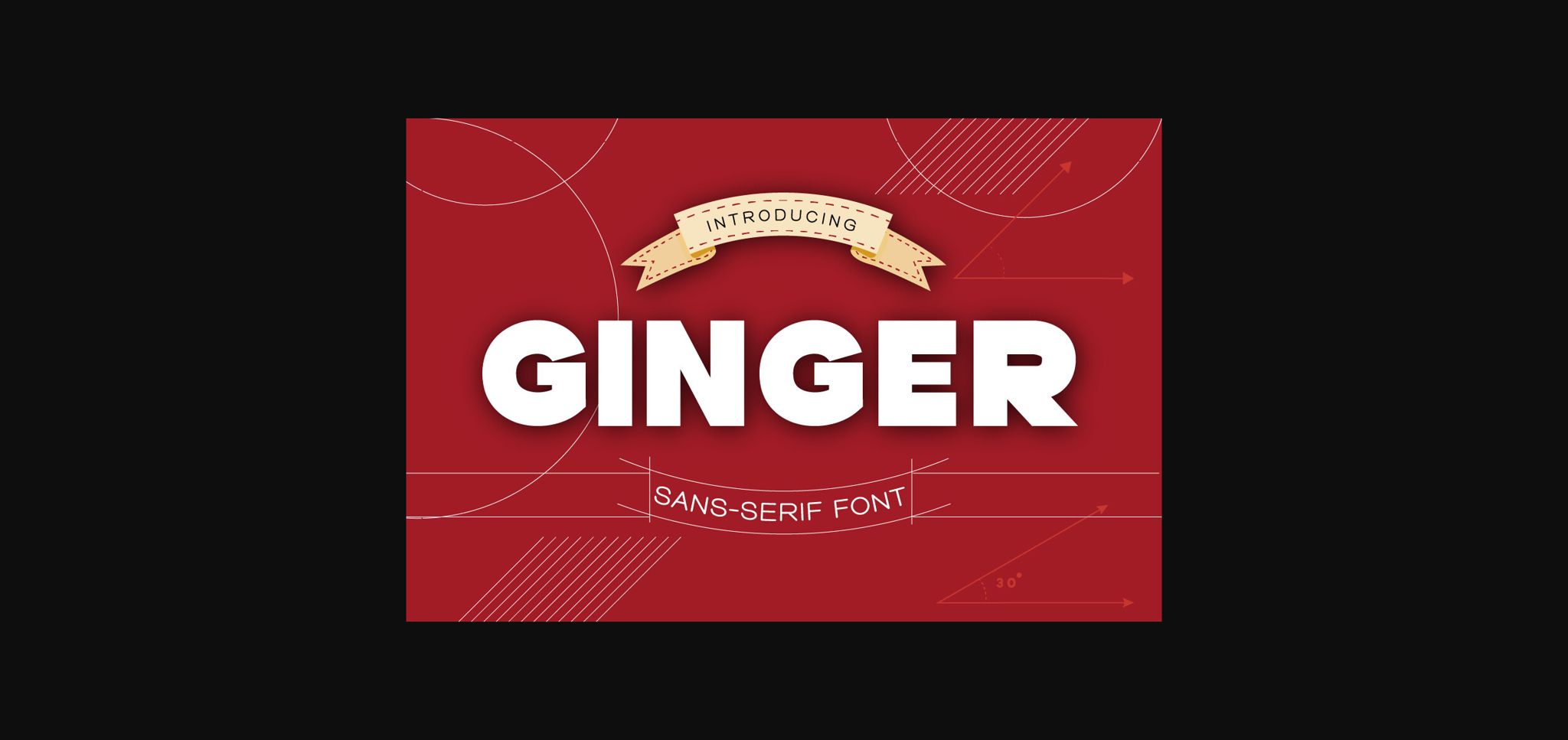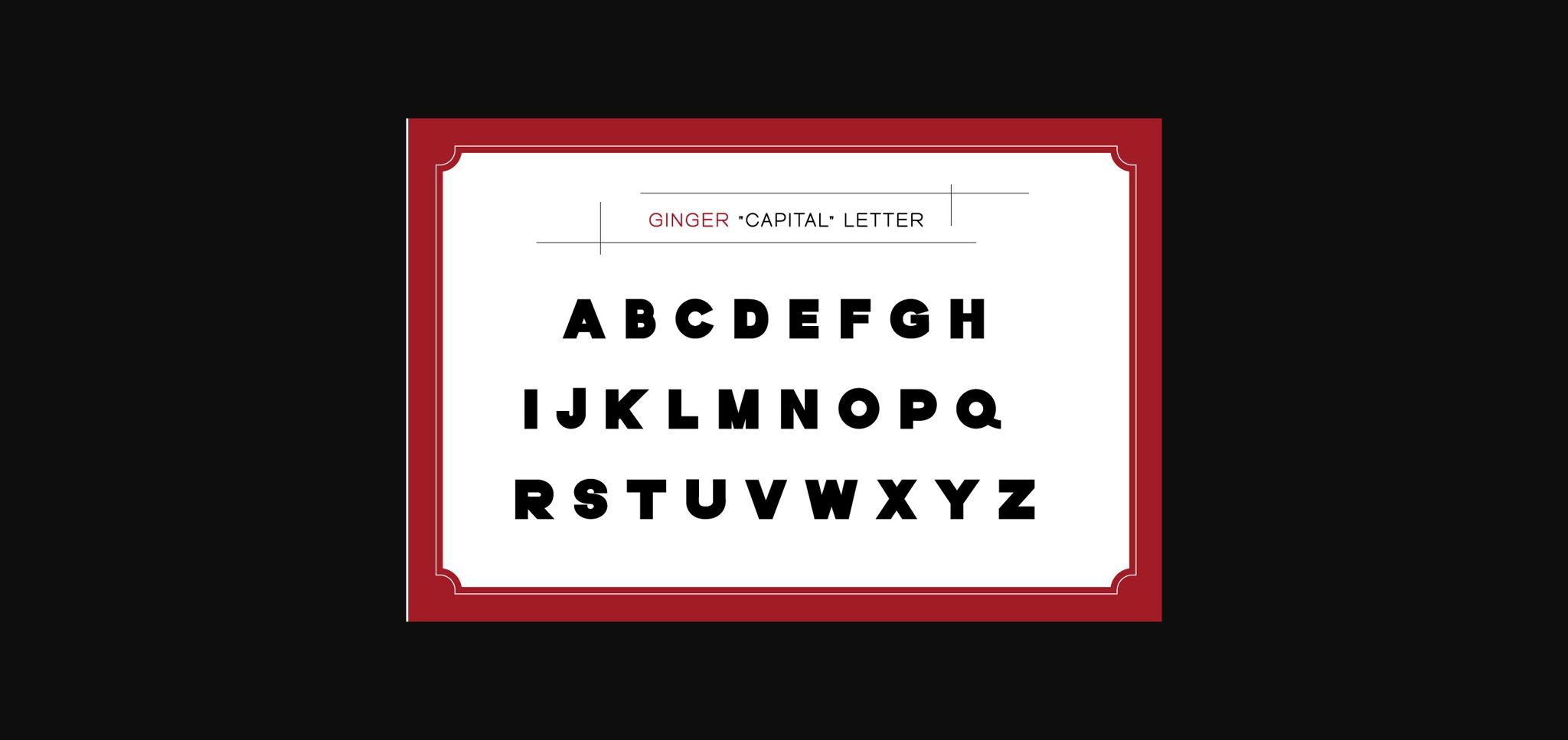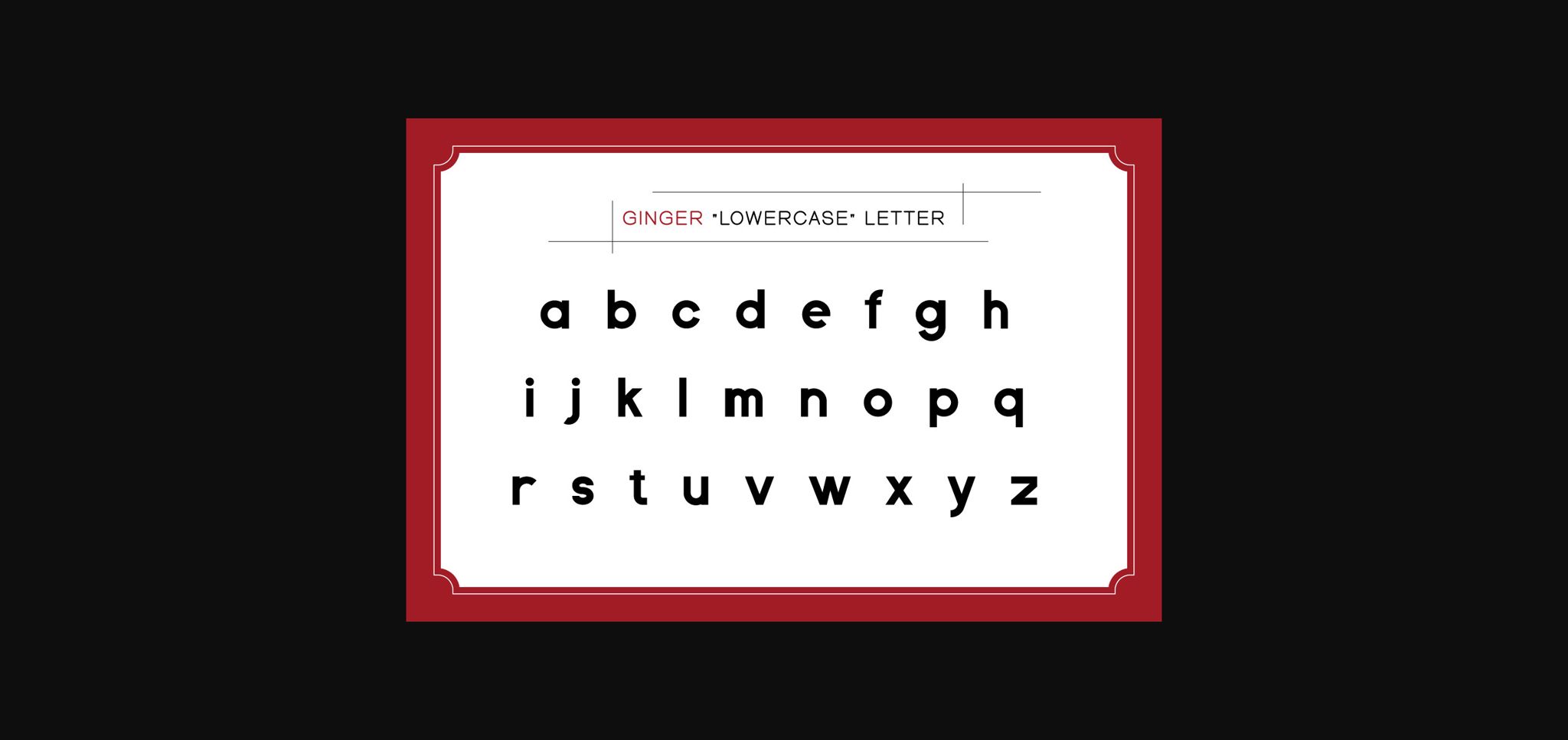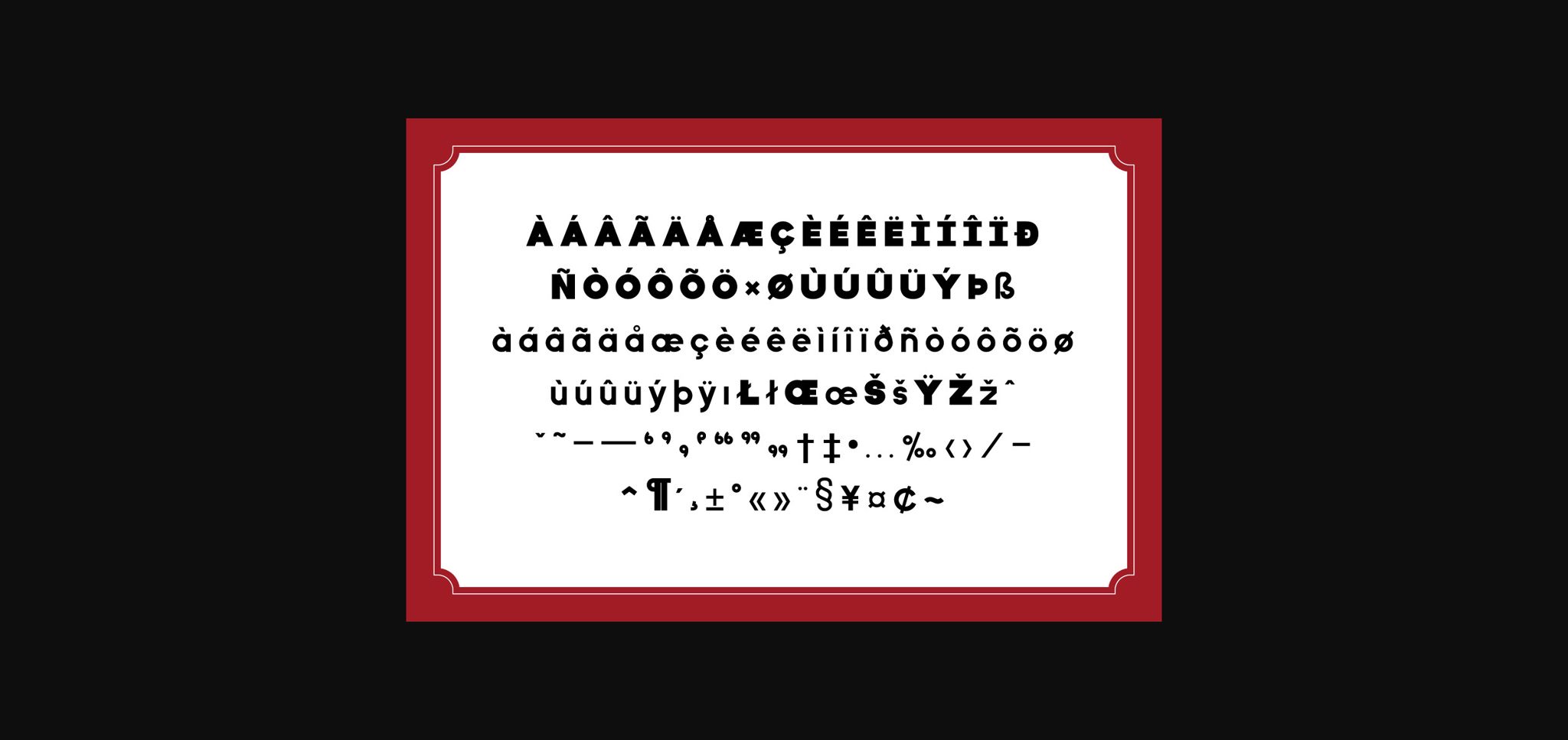
About Ginger Font
GINGER is a sans serif font, perfect for adding a touch to any of your projects, Fall in love with it and use it to create gorgeous wedding invitations, beautiful stationary art, and eye-catching social media posts, from greeting cards to party invitations, and much more!